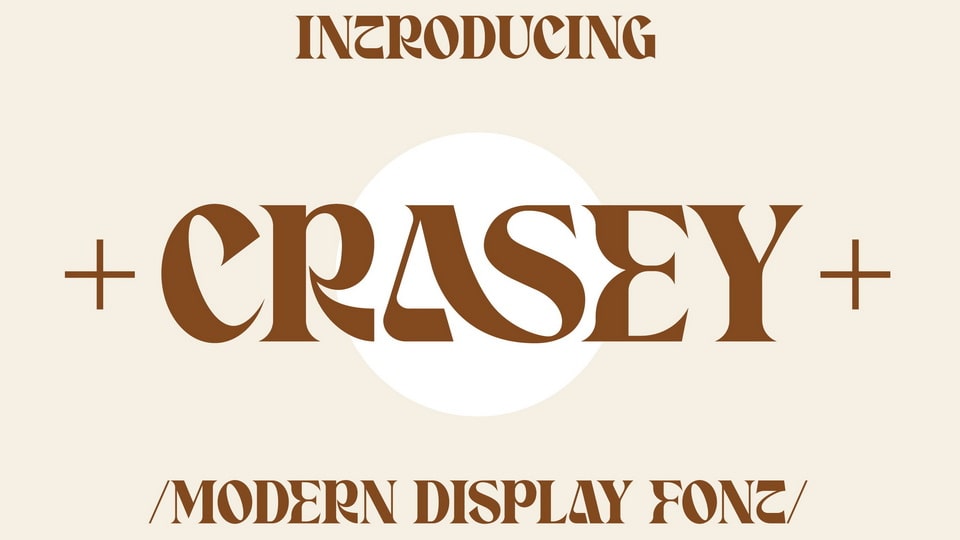
Download Crasey font, an aesthetic serif typeface that has own unique style and modern look. Crasey font is perfect for an elegant and luxury logo, book or movie title design, fashion brand, magazine, clothes, lettering, quotes, and so much more.